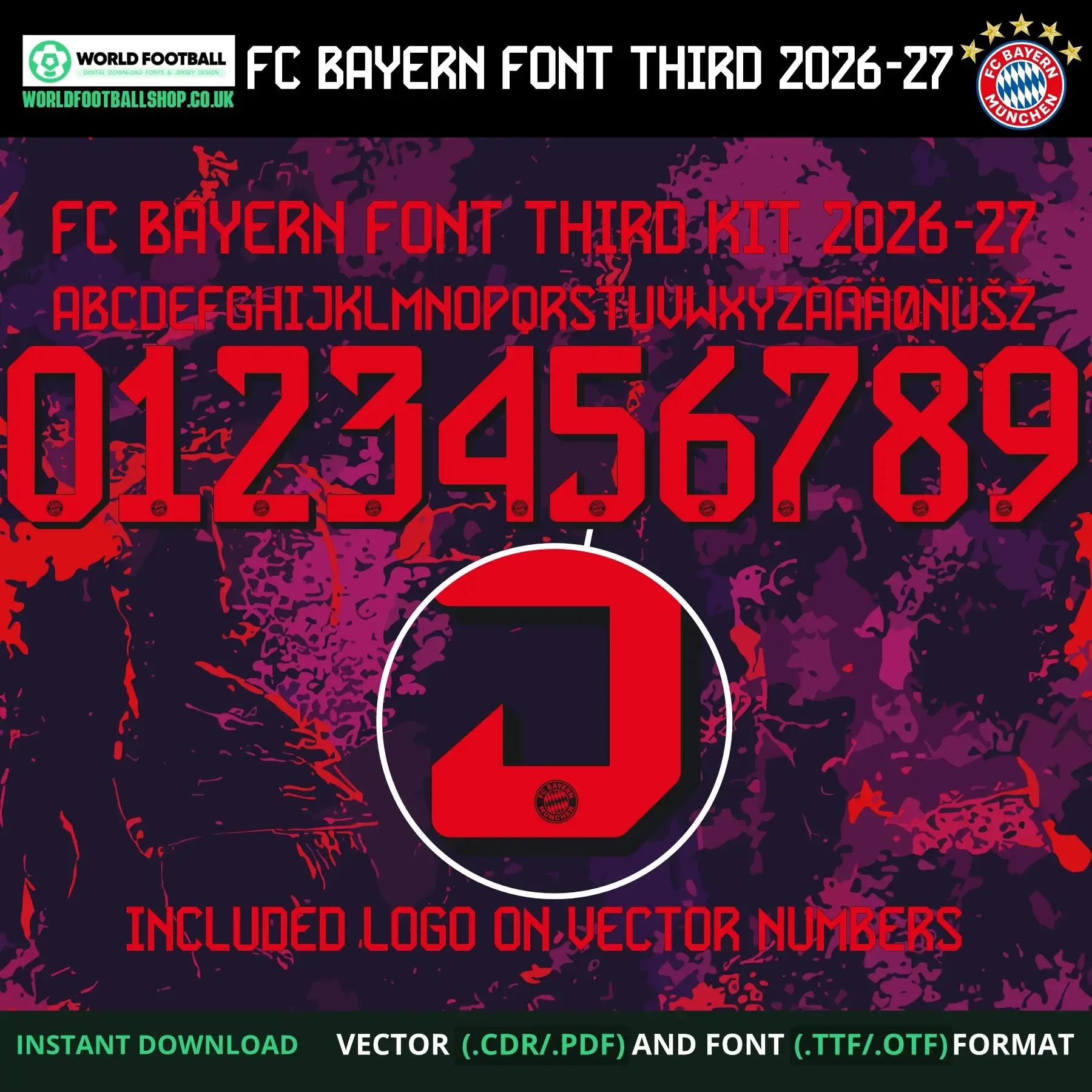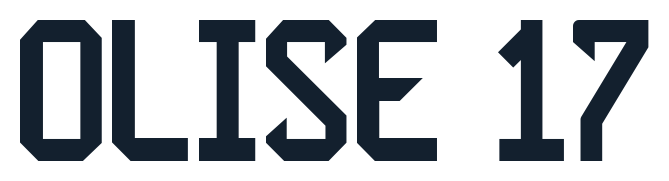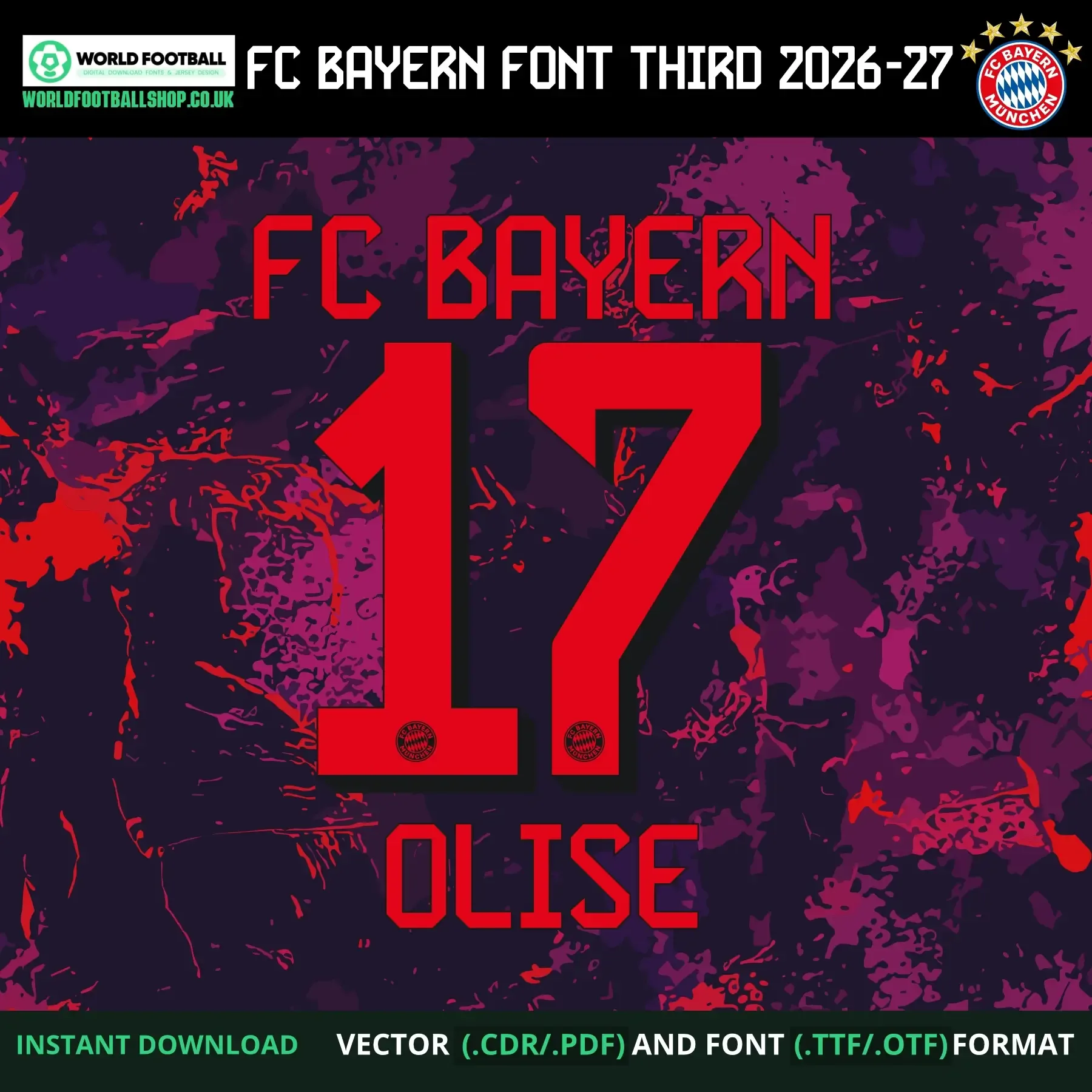
FC Bayern 2026-27 Football Font Vector Third
FC Bayern 2026-27 Football Font Vector Third, inspired by the style of Bayern Munich's third kit lettering. Includes TTF and OTF font files plus CDR and PDF vector files, with a full A-Z alphabet, numbers 0-9, and accented characters (À, Á, Ä, Ø, Ñ, Ü, Š, Ž). Instant digital download - no physical product is shipped.
Bayern Munich's actual 2026-27 third kit hides something in its pattern - the blurred, ink-like graphic across the shirt secretly depicts four of the club's most iconic moments: Franz Beckenbauer lifting the 1974 European Cup, Oliver Kahn with the 1996 UEFA Cup, Samuel Kuffour's dramatic 2001 Intercontinental Cup winner, and Arjen Robben's 2013 treble-clinching goal. This FC Bayern football font vector captures that tribute-kit spirit: bold red lettering with a dark shadow effect, set against a deep purple and magenta splattered background, with the club crest embedded at the base of every letter and number. The preview layout shows the full character set alongside a sample name and number combination - OLISE 17 - to demonstrate how the font looks applied.
- Bold red-on-purple styling with dark shadow effect stands out from Bayern's usual red-and-white identity
- Crest detail embedded on every character for a cohesive, kit-inspired look
- Crest detail on every number - ideal for accurate shirt number recreations
This font is an independent recreation, studied closely from the third kit's actual lettering to capture its proportions, shadow effect, and crest placement. It's built for jersey mockups, fan art, matchday graphics, and personal creative projects.